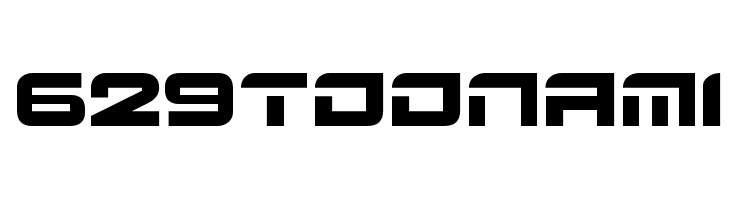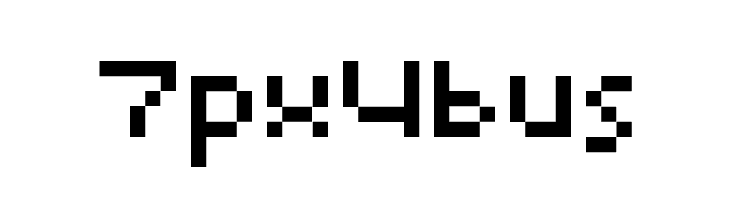
( Lyric Type - www.deviantart.com/westralinc )
A bold, futuristic font with a geometric and tech-inspired design.
A bold, geometric font with an industrial, futuristic style.
( Tami Vu - thepinksushi.com )
A playful, hand-drawn font with tall, narrow characters and a whimsical style.
( Jos Tan - notes.jos.net.au )
A pixelated, monospaced font with a retro digital aesthetic.
( Jos Tan - notes.jos.net.au )
A pixelated, retro-style font with a digital, blocky appearance.
( 010Bus )
A bold, pixelated font with a retro digital aesthetic.
( 010Bus )
A pixelated, monospaced typeface with a retro digital aesthetic.
( Fonts by Jacob Fisher - www.pizzadude.dk )
A bold, oblique font with a modern, futuristic style.
( LadyTimeless - graphxgonewild.com/ )
A collection of geometric shapes with a striped, slatted design.